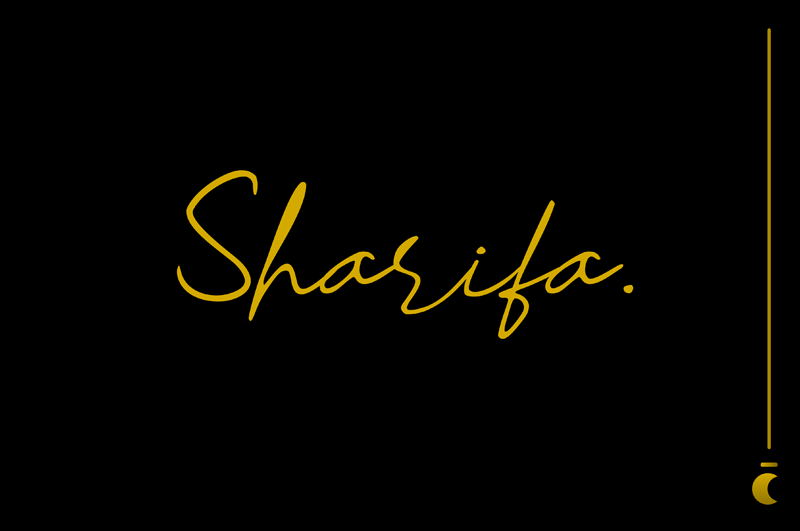
Sharifa Font
Sharifa Font is perfect for elegant Arabic branding, multicultural design projects, international business communications, cultural institution materials, diplomatic documents, luxury Middle Eastern brands, contemporary Islamic art galleries, global hospitality signage, cross-cultural publications, and sophisticated bilingual typography.
Sharifa Font is exciting because it masterfully bridges Eastern and Western typographic traditions while embodying the graceful elegance and cultural richness of Arabic calligraphy heritage. This font brings sophisticated international appeal and cultural authenticity to any project, making it ideal for organizations that want to convey respect for diverse cultures, global sophistication, and cross-cultural understanding. Its refined character and culturally sensitive design create an atmosphere of international elegance that resonates with multicultural audiences worldwide.
Sharifa Font family includes light, regular, medium, bold, and black weights, each available in roman and italic styles with extensive multilingual support and cultural ornaments, providing designers with comprehensive tools for creating respectful international typography and culturally aware brand experiences.
This distinguished international typeface combines traditional Arabic design influences with contemporary global aesthetics, making Sharifa Font Free Download an exceptional choice for projects requiring cultural sensitivity and international sophistication. The font's beautifully crafted letterforms feature elegant proportions and culturally respectful styling that honor Middle Eastern design traditions while ensuring excellent readability across diverse applications.
Whether you're designing international brand identity, multicultural event materials, or global hospitality communications, Sharifa Font delivers unmatched cultural sophistication and international credibility. The font excels in both intimate cultural applications and large-scale international environments where cultural respect and global elegance create meaningful cross-cultural connections.
International design professionals choose Sharifa Font for its ability to communicate cultural awareness and global sophistication while maintaining excellent functionality across diverse linguistic and cultural contexts. The font's elegant character makes it particularly effective for diplomatic organizations, international hotels, and multicultural institutions.
Each character reflects the refined artistry of Arabic calligraphy traditions, featuring elegant curves and sophisticated proportions that create typography as beautiful and culturally rich as traditional Islamic art and contemporary international design.